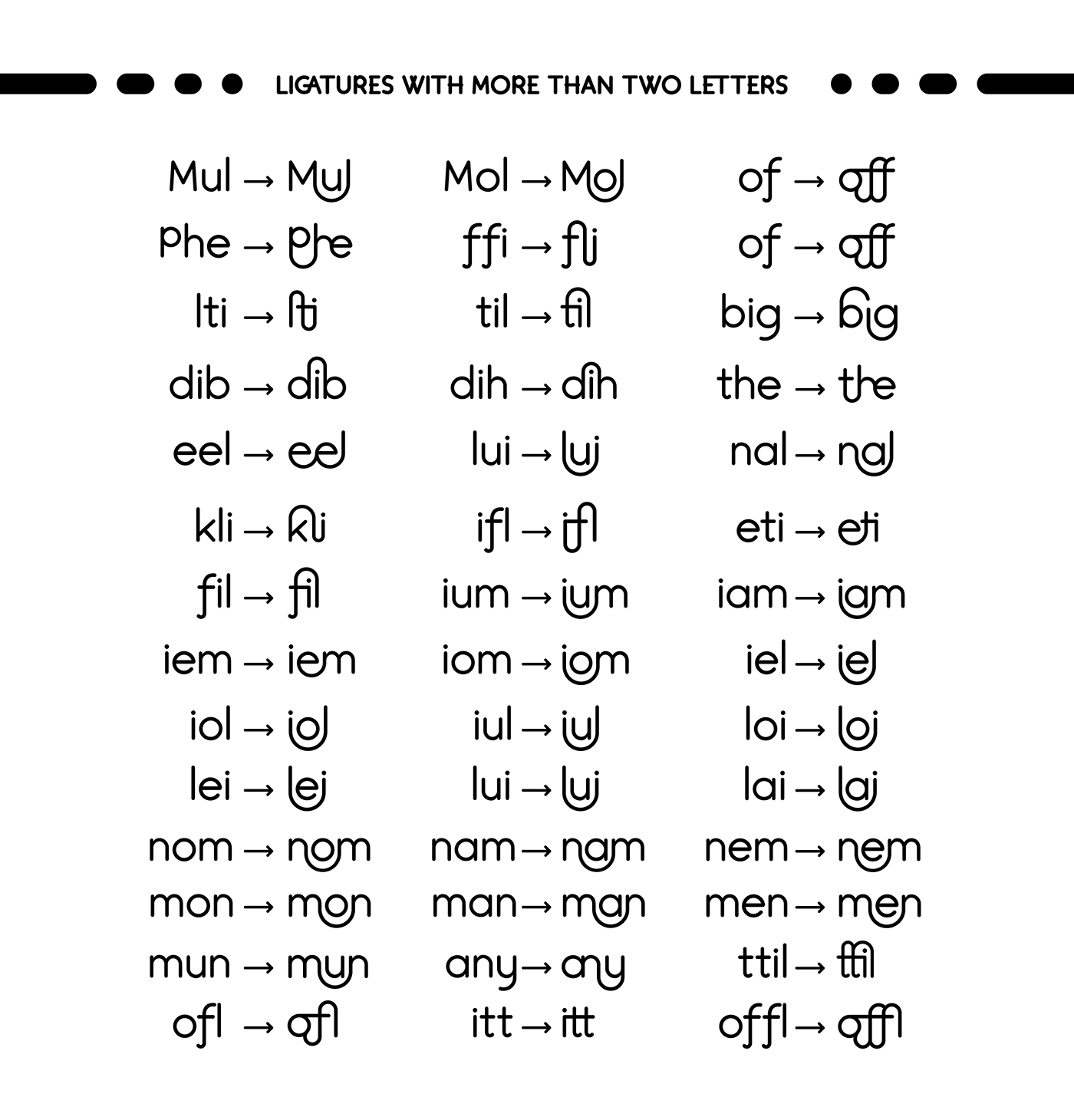
List Of Ligatures Fonts References. Ligatures for fa, fe, fo, fr, fs, ft, fb, fh, fu, fy, and for f followed by a full stop, comma, or hyphen are also used, as well as the equivalent set for the doubled ff. A glyph that combines the shapes of two (or more) characters.
Ligatures Are Special Characters In A Font That Combine Two (Or More) Troublesome Characters Into One.